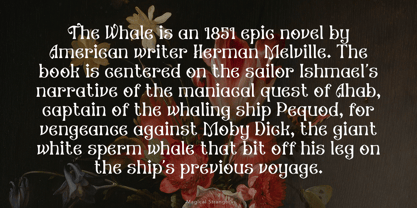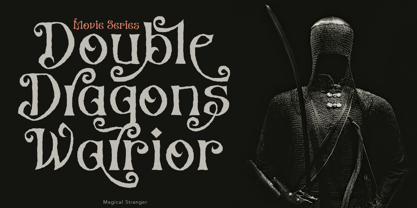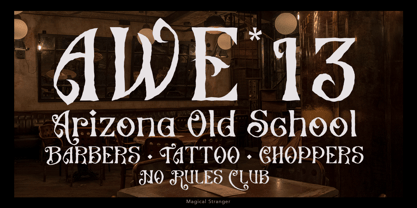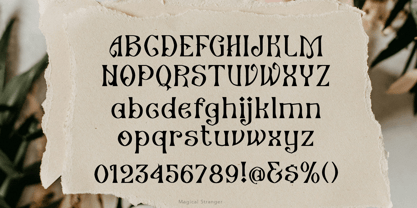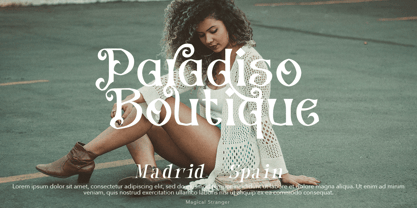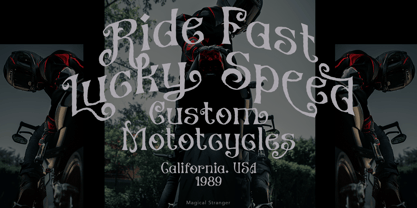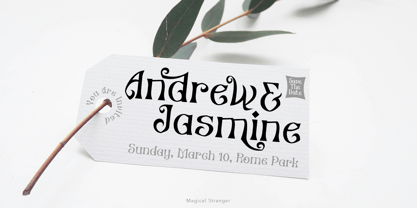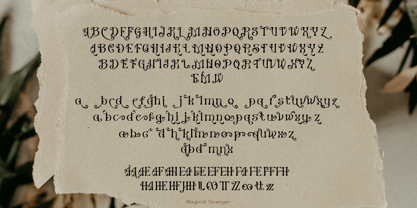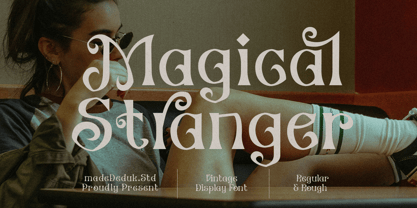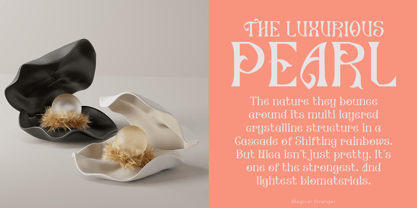
Magical Stranger
by madeDeduk
The Magical Stranger Font Family was designed by madededuk and published by madeDeduk. Magical Stranger contains 2 styles and family package options. More about this family
Magical Stranger is a serif display font inspired by the typography from the 19th century, classic, vintage look high contrast serif that is at home in high-end fashion and cultural environments you can explore and combine. This font is very perfect for many display purposes in your product design if you want to a vintage and classic style. Such as book covers, product labels, logos badges, drink bottles, tattoo shop, coffee shops, fashion products, wedding invitation, etc.
Designers: madededuk
Foundry: madeDeduk